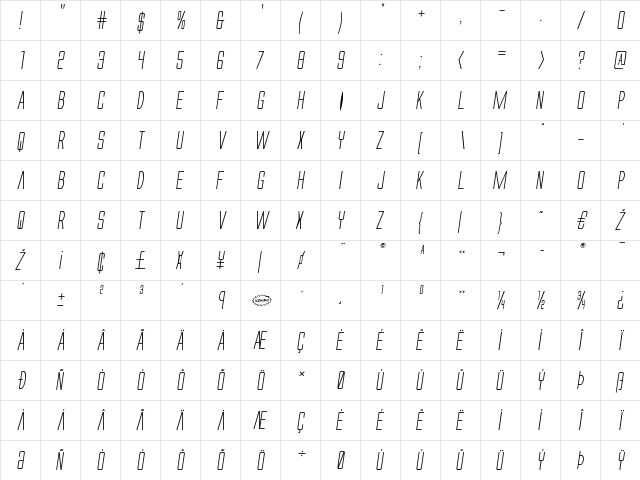
Alien League II Italic Italic
Design Context for Alien League II Italic Typeface
Alien League II Italic is a composed and adaptable typeface that performs quietly and consistently across a wide range of design contexts. The slanted form adds forward momentum and visual energy.
Pro Tip: Try Alien League II Italic for annotation and caption copy alongside an upright companion — the contrast in angle creates a dynamic but ordered typographic system.